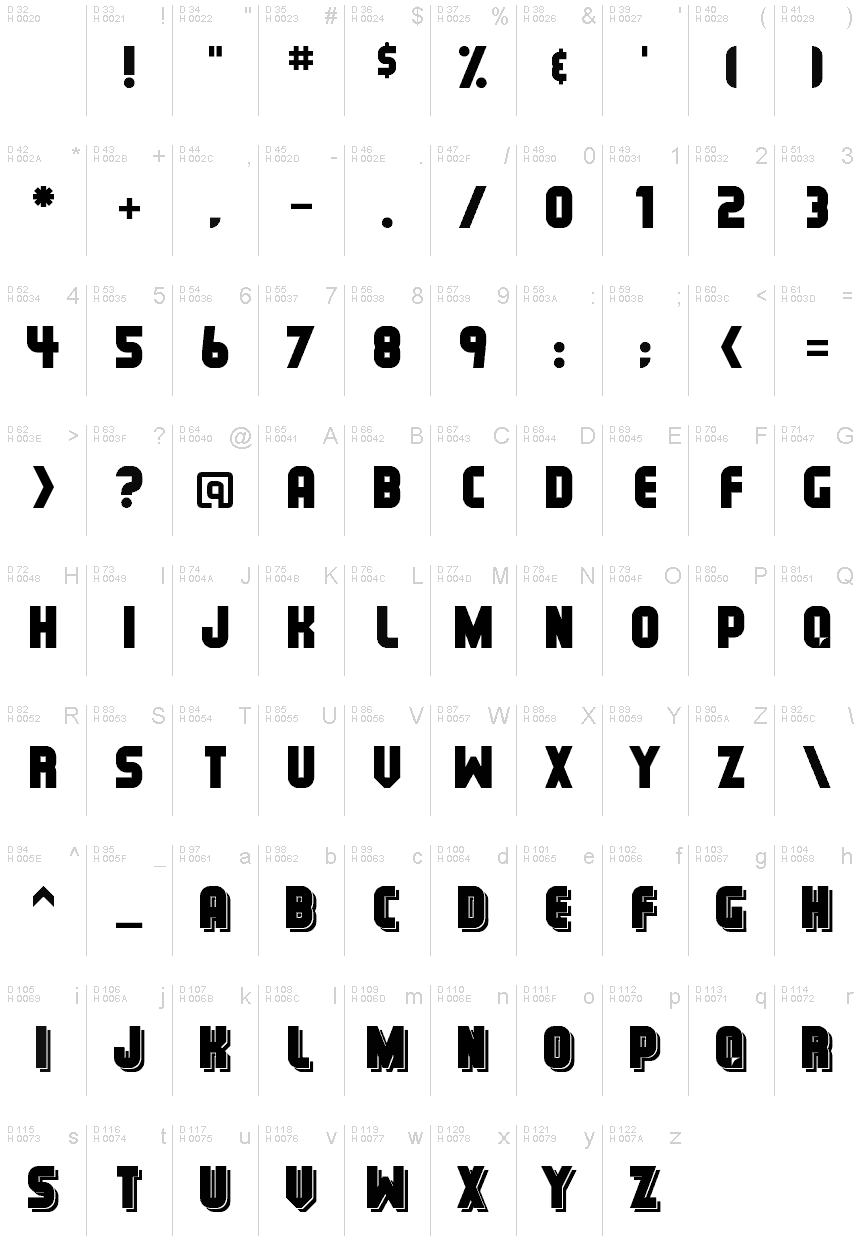
Municipal
Municipal, a bold and condensed sans-serif font designed by SRC Designs, exudes a contemporary and impactful aesthetic. Distinctive letterforms, with their sharp edges and geometric shapes, lend this font a striking visual presence that commands attention.
The font's condensed width and bold weight create a strong, authoritative impression, making it an ideal choice for headlines, logos, and branding materials. The clean, minimalist design allows the content to take center stage, ensuring a modern and unforgettable visual impact.
Versatile in its applications, Municipal shines in a variety of design contexts, from editorial layouts and packaging to signage and digital interfaces. Its robust character and distinctive style make it a compelling option for those seeking to establish a powerful, memorable brand identity.